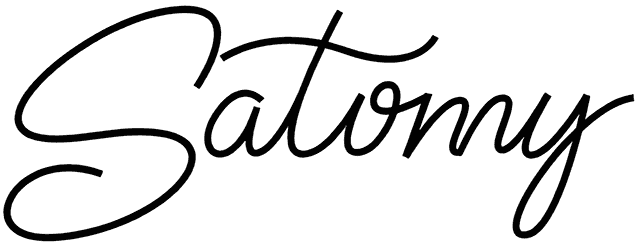
Satomy Font
The natural touch of this handwritten font is going to catch your eyes if your design needs to become friendly and keep its chic form. The letters are soft and casual with an elegant vibe, and you almost have the full character of this thank you font. Your travel postcard will be unique with the Satomy font. Use it and amaze your viewers.